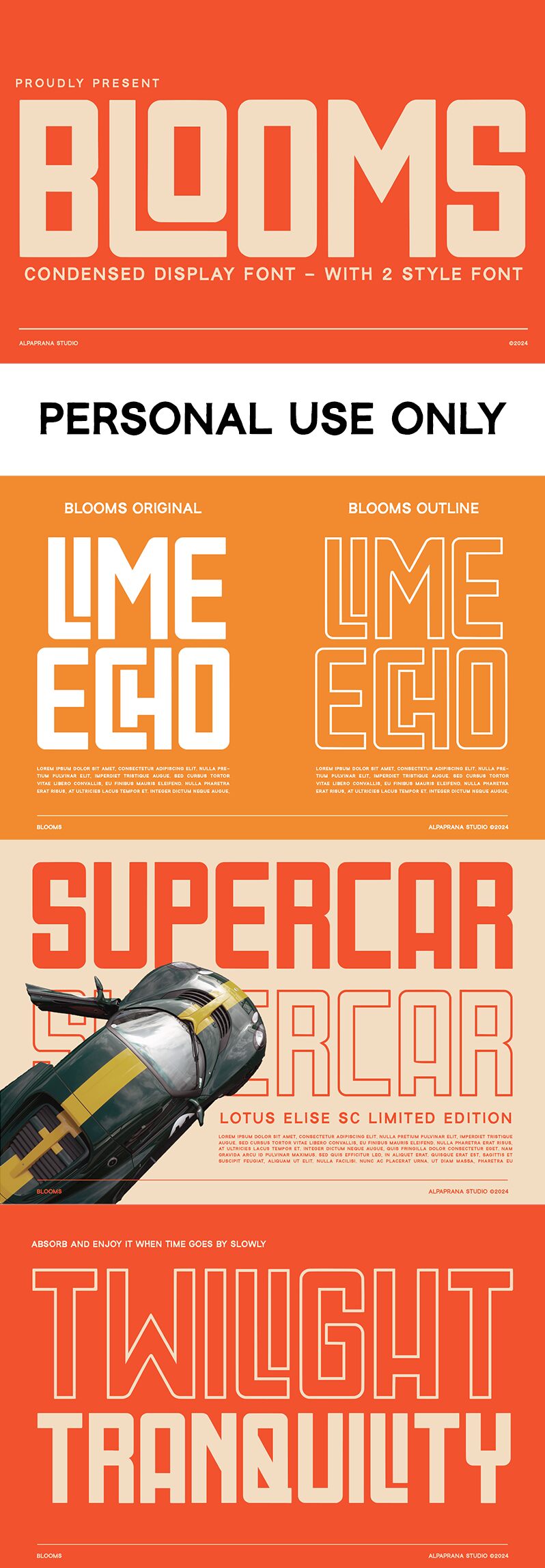
Blooms font family by Alpaprana Studio comes with 2 font styles and is a modern and distinctive sans serif free font set. It offers a clean versatile design and a contemporary structured style that complements all projects and designs. The characters of different widths present nice visual energy, especially since they are combined as one within each designed letter.
The usage of Blooms font family is varied and it can best be used in headings and texts in posters, brochures, flyers, magazines, newspapers, etc. Also used to an impactful effect are business cards, invitations, greeting cards, and similar printed products.